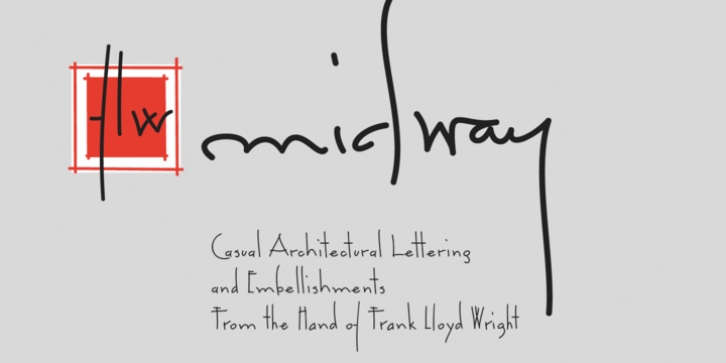
This font set is based on Frank Lloyd Wright’s hand-lettering found on the Chicago Midway Gardens working drawings from 1913. This type of architectural lettering is a bit more casual than standard lettering found on most blueprints. It evokes the personality of Frank Lloyd Wright and complements the other fonts in the P22 FLW font series.
Midway One and Midway Two can be used interchangeably to give a more naturalistic feeling of hand lettering. Midway Ornaments features over 100 decorative border elements that can be combined is many ways for surprising and effective decorative motifs.
Midway One and Midway Two have been remastered and now contain over 400 characters including support for Western and Central European languages.